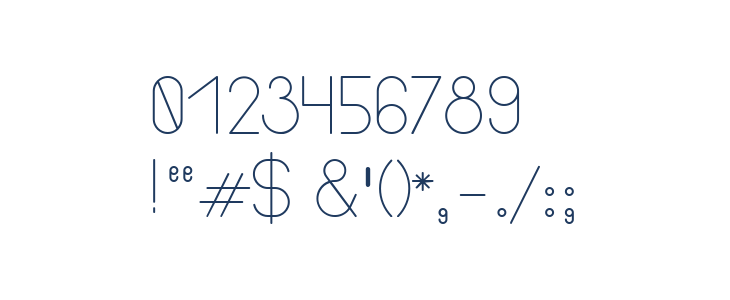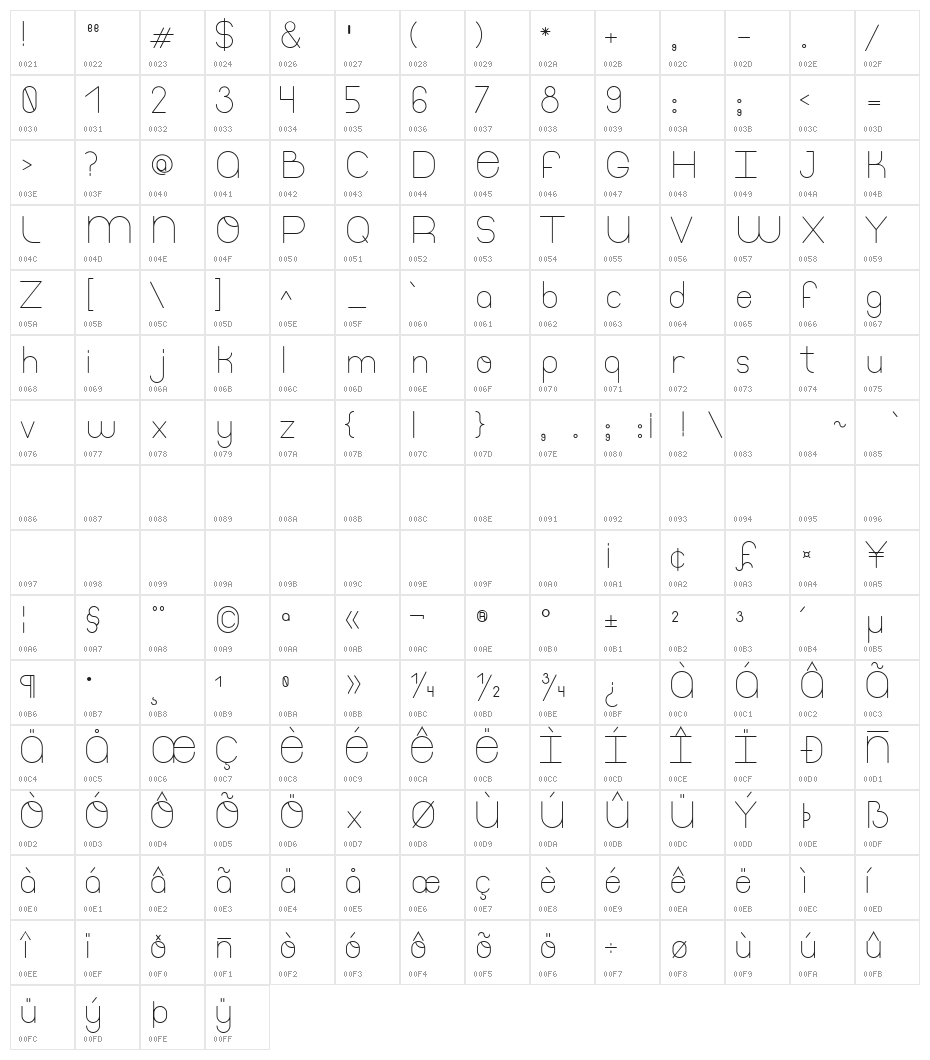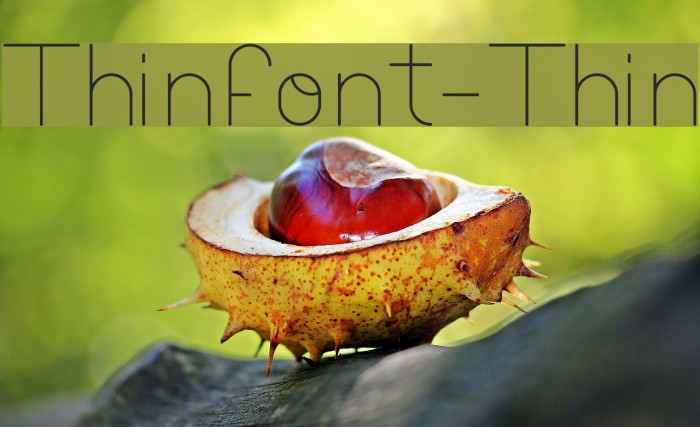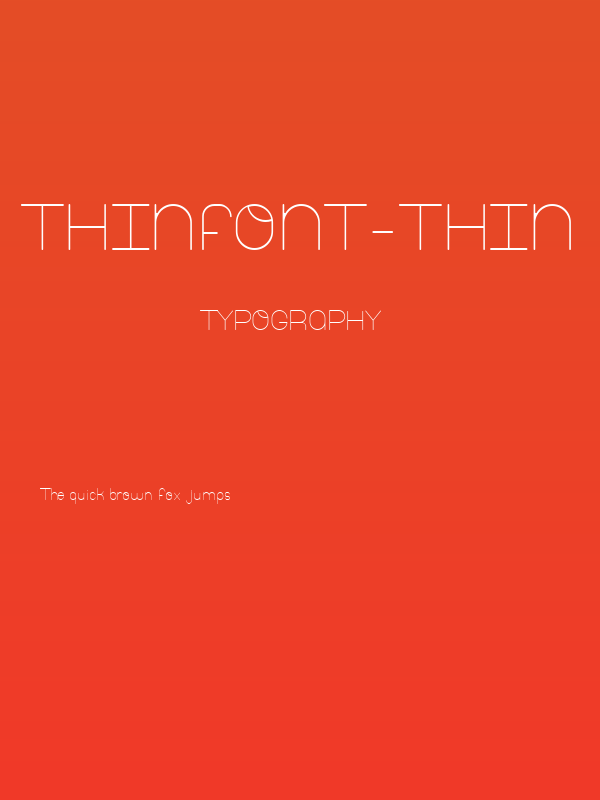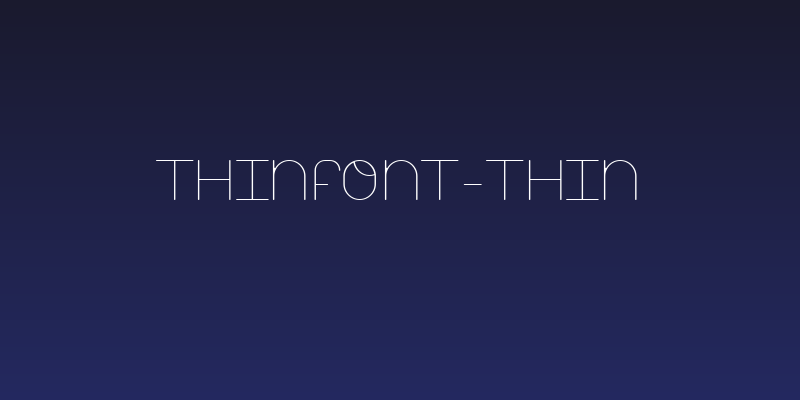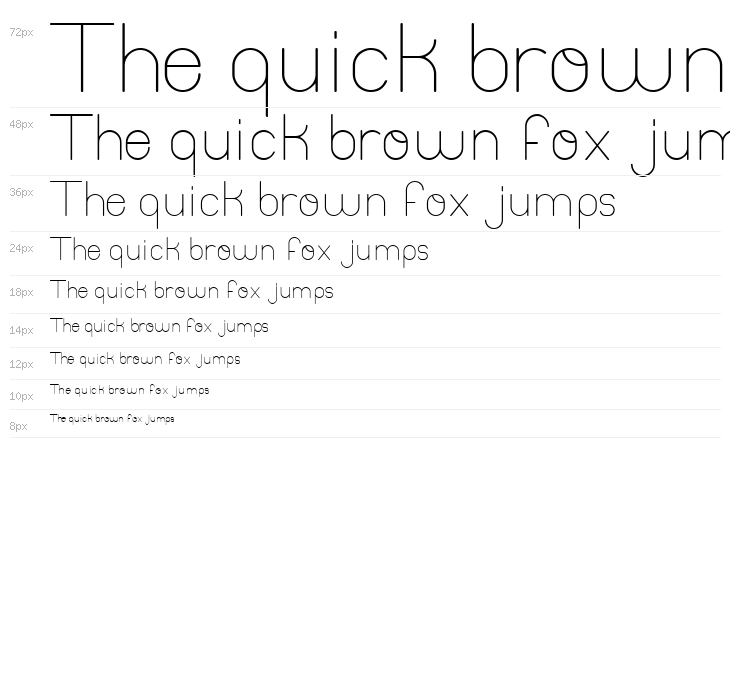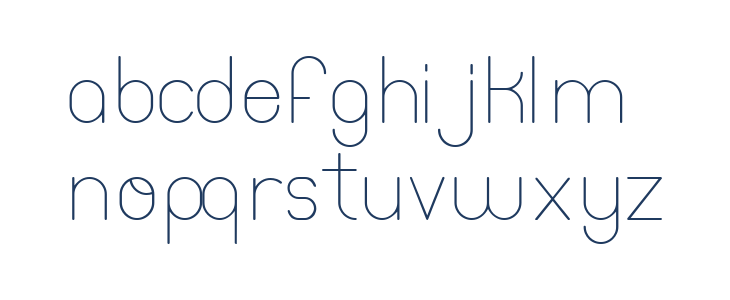
Thinfont-Thin Font
Thinfont-Thin Description
This font features a minimalist and geometric design, characterized by its thin and uniform line weight. The characters are constructed with clean, straight lines and smooth curves, giving it a modern and sleek appearance. The uppercase letters maintain a consistent height, while the lowercase letters exhibit a slight variation in height, adding a subtle dynamic quality. The numerals are clear and legible, matching the overall aesthetic of the font. Special characters are included, maintaining the same thin and precise line work. This font's simplicity and elegance make it versatile for various design applications.
Use CaseHeadlines, Logos, Digital interfaces
Proposed ProjectsIdeal for modern branding, minimalist posters, digital interfaces, and editorial design.